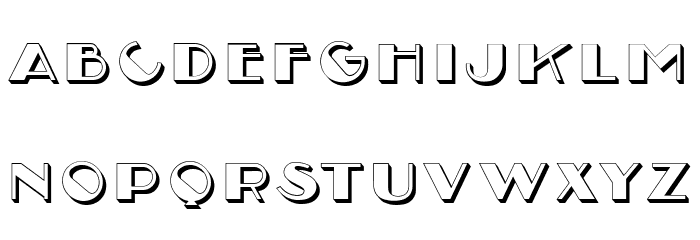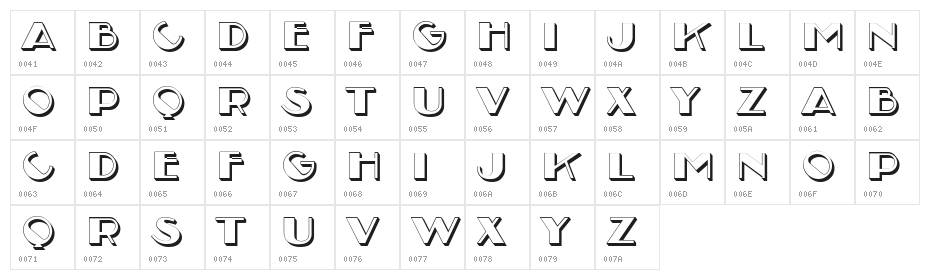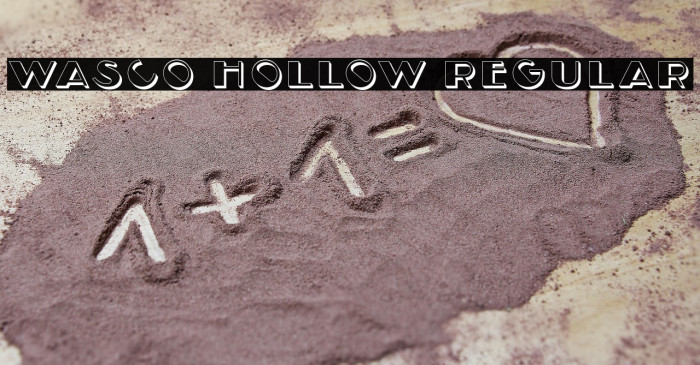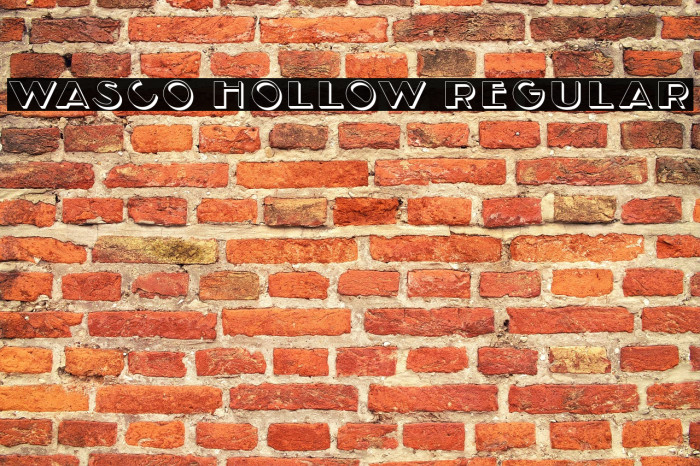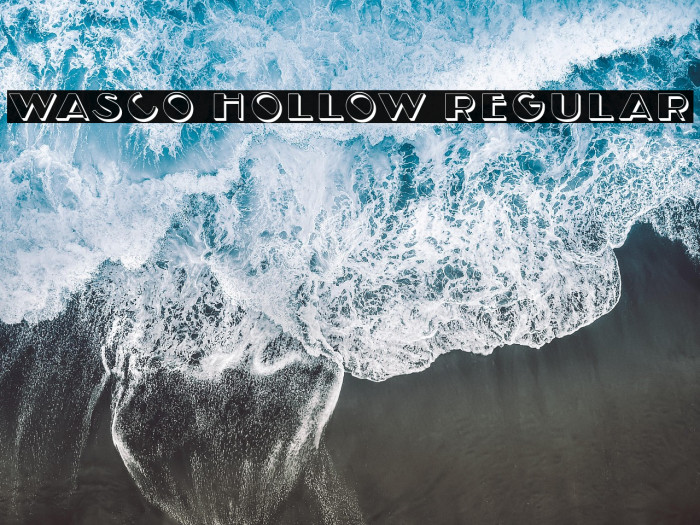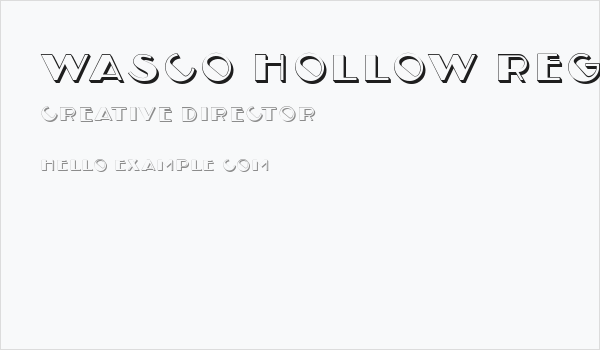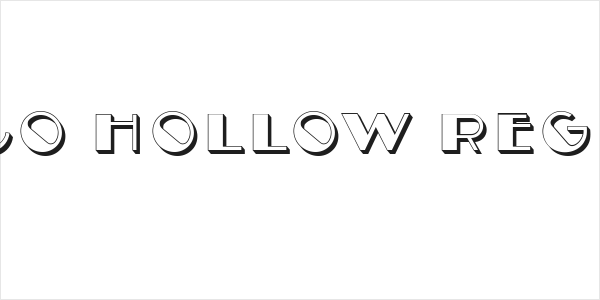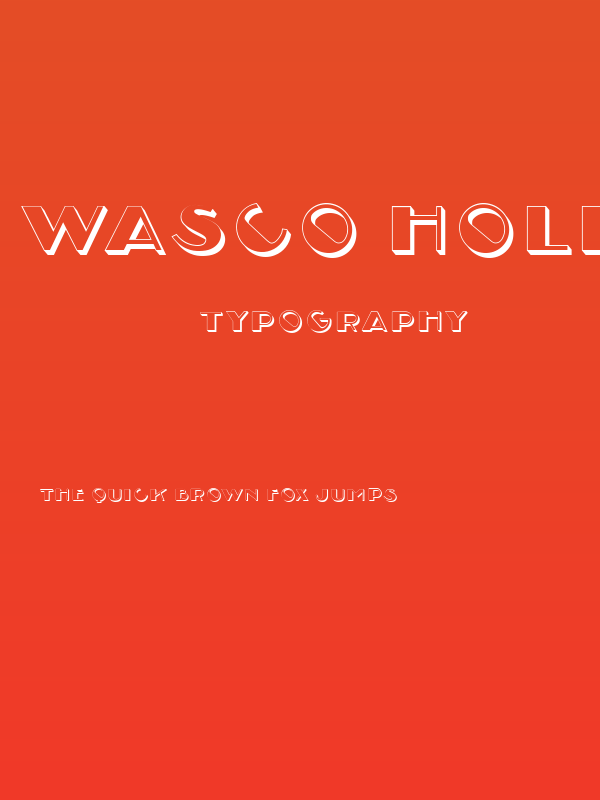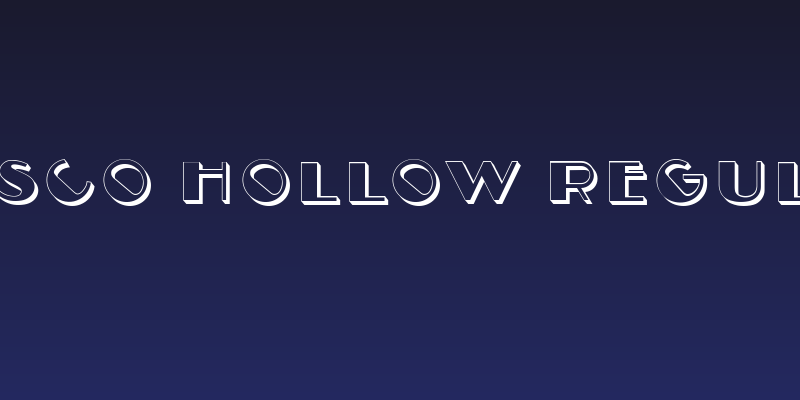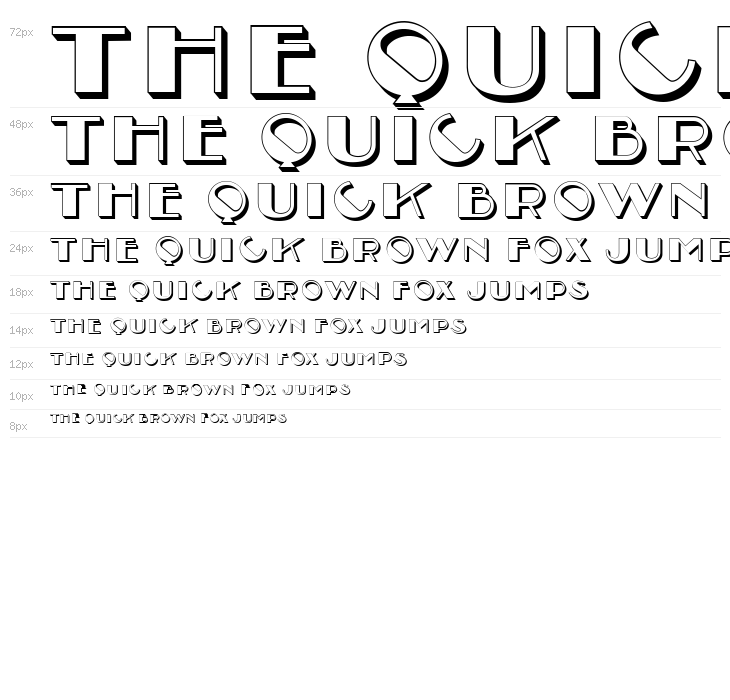
Wasco Hollow Regular Font
Wasco Hollow Regular Description
This font features a unique hollow design with a modern and geometric aesthetic. The characters are outlined with a consistent stroke width, creating a striking visual effect that emphasizes their shape and form. The uppercase letters are bold and commanding, while the lowercase letters maintain the same stylistic approach, ensuring uniformity across the typeface. The numerals and special characters are crafted with the same attention to detail, making them suitable for a variety of design applications. The overall style is clean and contemporary, making it ideal for projects that require a distinctive and eye-catching typeface.
| Proposed Projects | Ideal for branding, posters, headlines, and any design needing a bold, modern touch. |